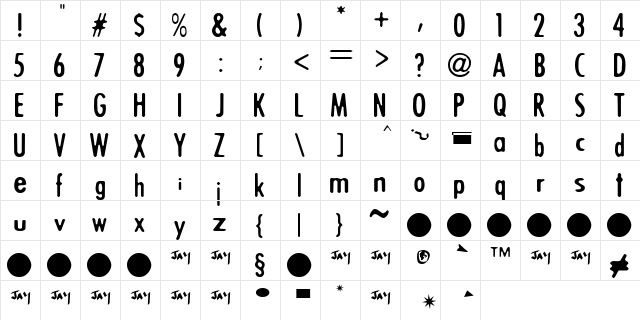
Trigger A
Design Context for Trigger Typeface
Trigger is a composed and adaptable typeface that performs quietly and consistently across a wide range of design contexts.